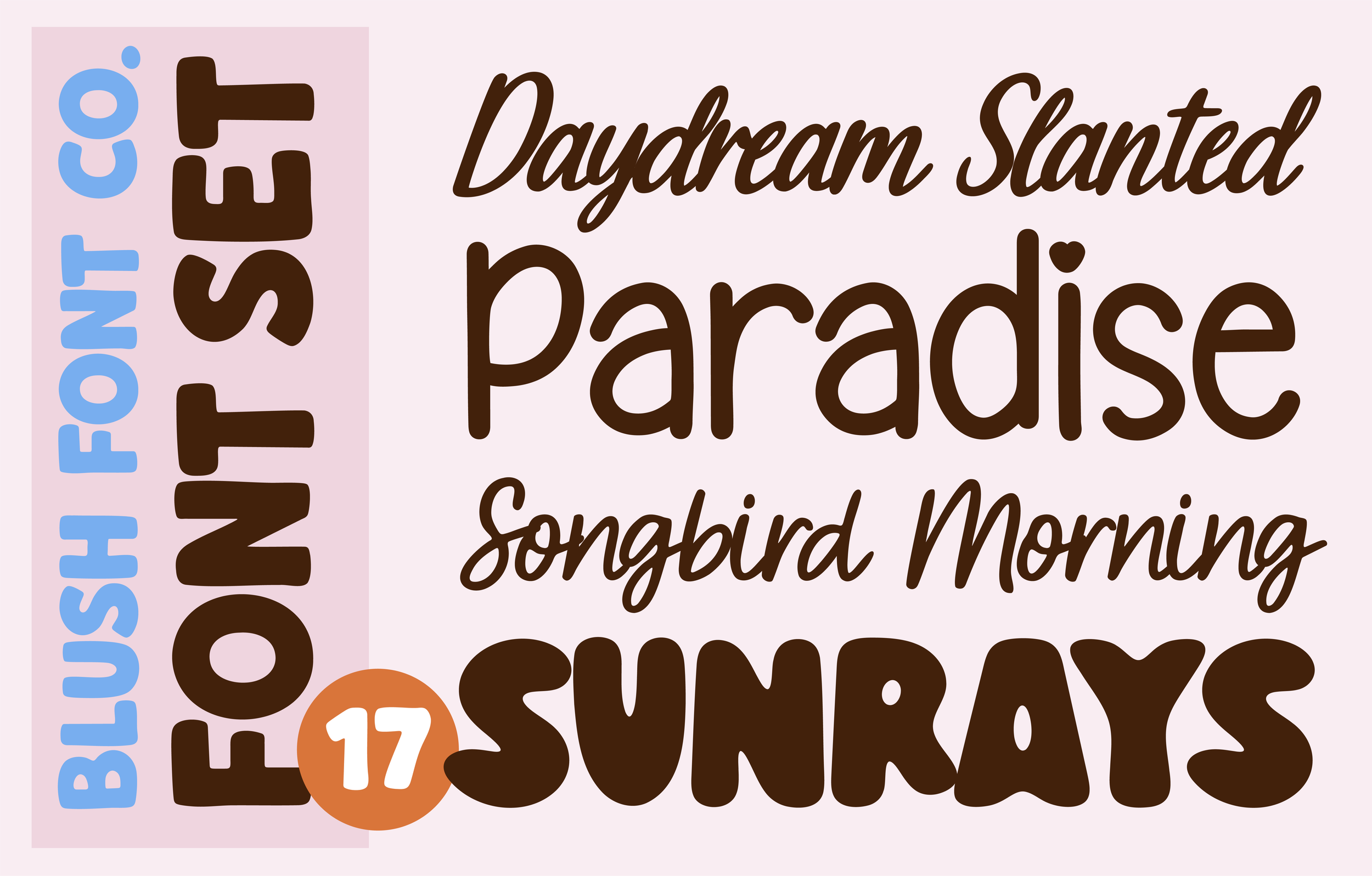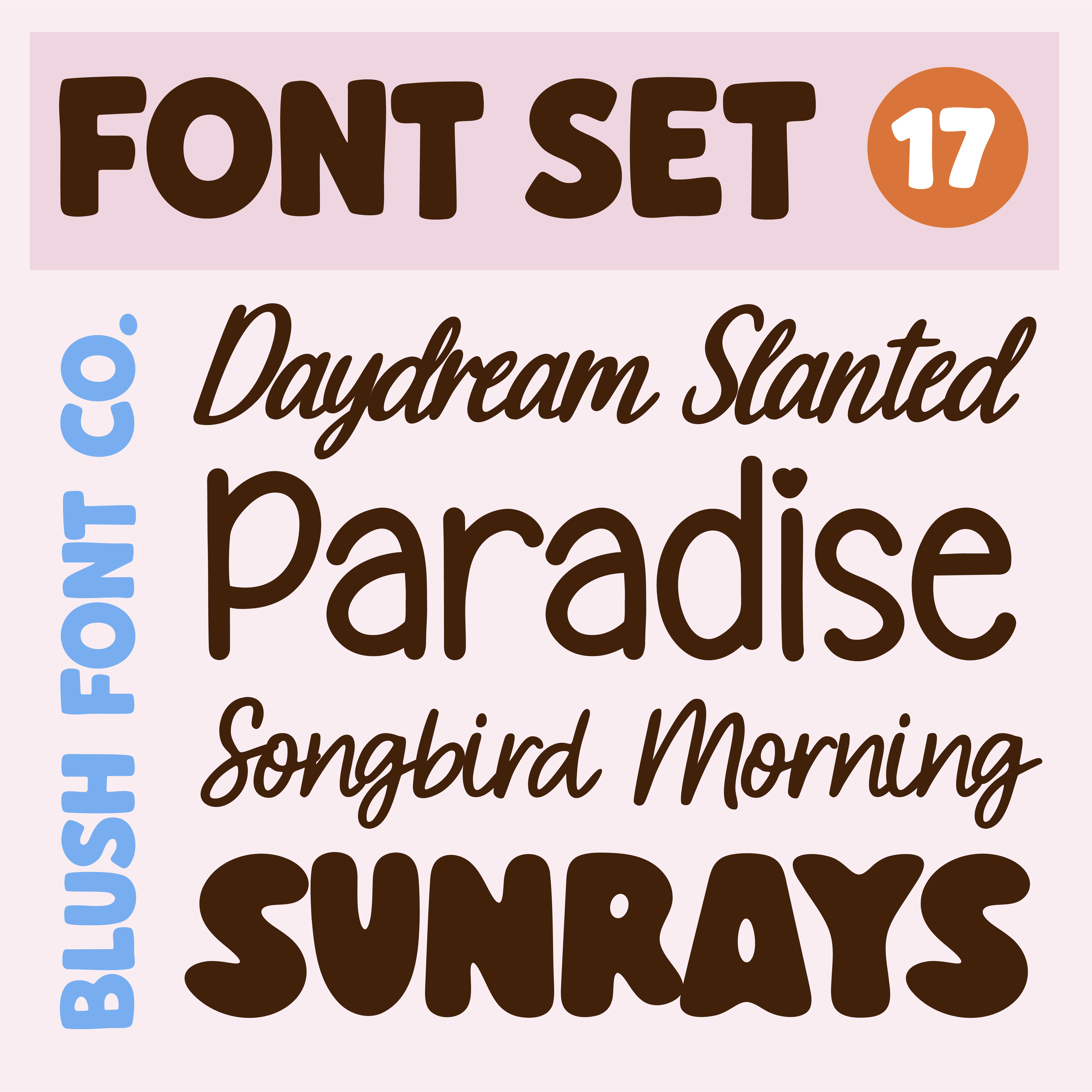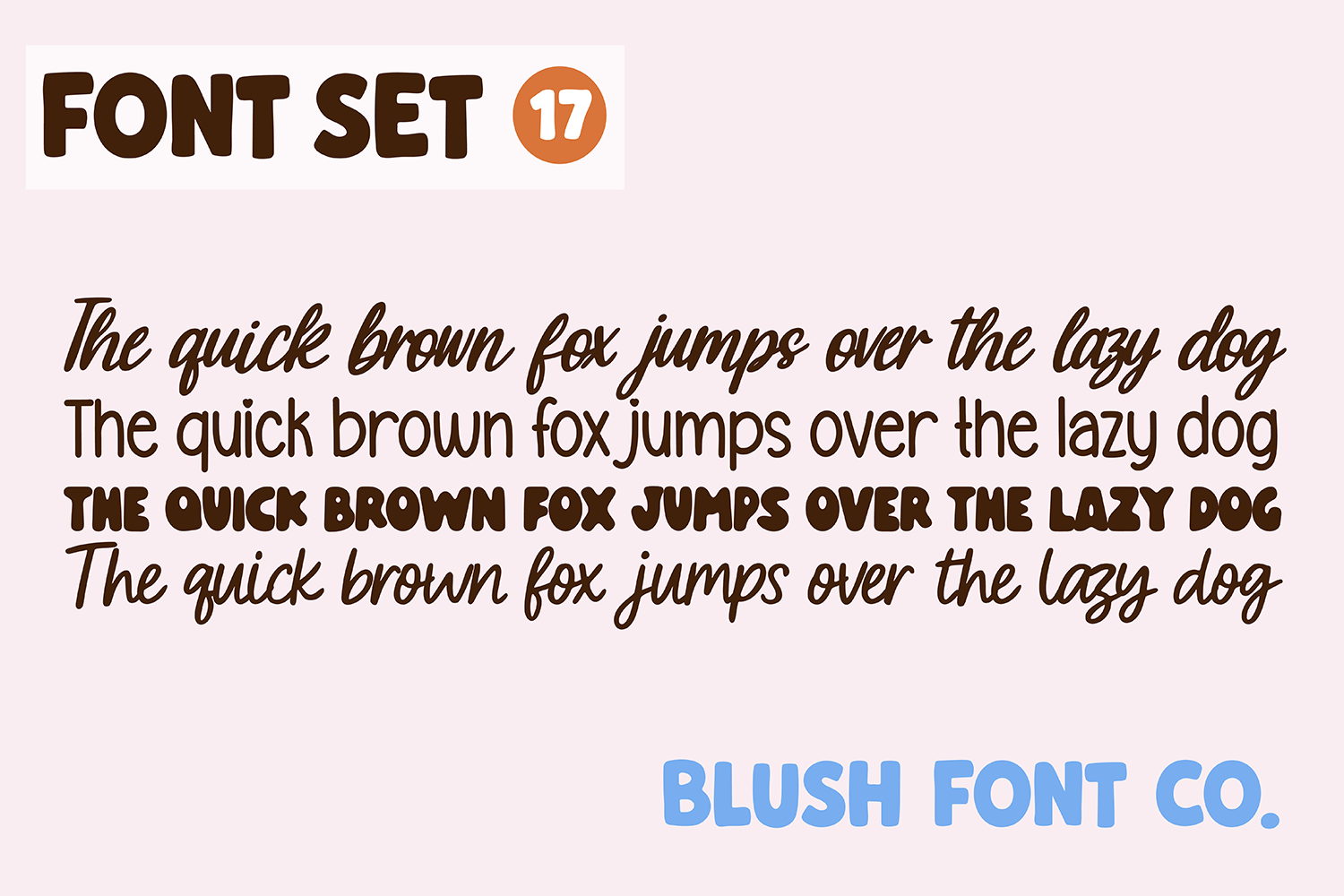
BFC FONT SET 17
Small bundle of my recent fonts! These are cute script and bold fonts. These will work perfect for Cricut and planner projects.
Paradise Getaway Bold
Daydream Slanted
Songbird Morning
Sunrays